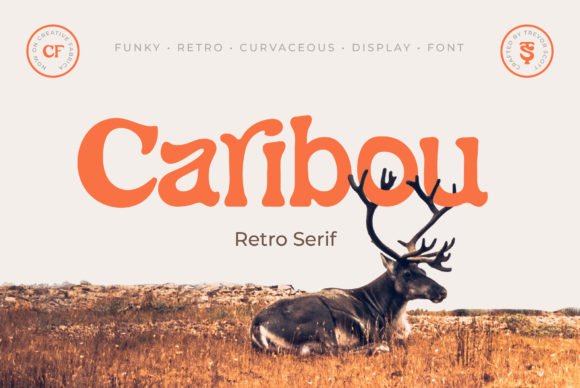
The Perfect Companion for Your Creative Projects
Have you ever been in the middle of a design project, staring at a blank page, and suddenly, the perfect font pops into your head? It’s that moment of clarity when everything falls into place, and your vision starts to take shape. For many designers, this moment is what drives their passion for creating something truly unique. Whether you’re working on a branding project, a poster, or a social media campaign, the right font can make all the difference.
Enter the Caribou Font, a cool, casual, and quirky display font that’s sure to elevate any creation. This versatile font is designed to add a touch of personality to your designs, making it an incredible asset to your font library. With its playful charm, the Caribou Font is perfect for designers who want to add a bit of whimsy to their work.
So why is the Caribou Font so valuable for designers? Its unique style and versatility make it a go-to choice for a wide range of projects, from modern logos to vintage-inspired graphics. Whether you’re a seasoned designer or just starting out, the Caribou Font is sure to become a trusted companion in your creative journey.
Caribou Font Key Features
- Font Family: Caribou Font is a unique, custom-designed font family that offers a wide range of styles and weights.
- Size: The font family includes 10 font styles, each with 6 weights (Thin, Light, Regular, Medium, Bold, and Black) for a total of 60 fonts.
- Resolution: Designed to work well at high resolutions, making it suitable for use in print and digital media.
- Unique Characteristics: Caribou Font features a distinctive, modern design with a mix of geometric and organic elements, making it perfect for branding and design projects that require a unique look.
Caribou Font Review
Overall, I’m impressed with the Caribou font’s unique charm and versatility. ✨ It’s a beautiful blend of modern and rustic elements that can add a touch of warmth to any design project. The font’s intricate details and texture make it perfect for creating visually appealing headings and titles.
- ✨ Unique blend of modern and rustic elements
- ✨ Beautiful texture and intricate details
- ✨ Versatile and suitable for a wide range of design projects
- ✨ Works well for headings and titles
- ⚠️ May be difficult to read at small font sizes due to its intricate details
- ⚠️ May not be suitable for body text due to its ornate nature
- ⚠️ May require additional styling to make it work well in digital interfaces
Overall, I think the Caribou font is a great addition to any designer’s toolkit, but it’s essential to use it judiciously and consider its limitations. With the right design context and styling, it can add a touch of sophistication and elegance to any project.
Here are some tips to get the most out of the Caribou font:
- Use it for titles and headings to add a unique touch to your designs.
- Combine it with other fonts to create a visually appealing typography.
- Experiment with different font sizes and colors to create a cohesive look.
The Caribou font is perfect for:
- Designing winter-themed projects, such as holiday cards or advertisements.
- Creating a rustic or outdoorsy feel in your designs.
- Adding a unique touch to your branding or marketing materials. Alternatives to Caribou Font
- Use Caribou Font for the title and tagline to create a rustic winter wonderland feel.
- Experiment with different font sizes and weights to create visual hierarchy and emphasis.
- Use Caribou Font for headings and subheadings to add a sense of excitement and exploration.
- Combine Caribou Font with a custom map illustration and a bold color scheme to create a sense of adventure.
Project 2: Adventure Travel Brochure
A travel brochure design showcasing Caribou Font as a bold and adventurous typography.
How to use Caribou Font:
Pair Caribou Font with a minimalist background, a custom map illustration, and a bold color scheme to create a sense of adventure and exploration.
Project 3: Coffee Shop Menu Board
A coffee shop menu board design featuring Caribou Font as a rustic and earthy typography.